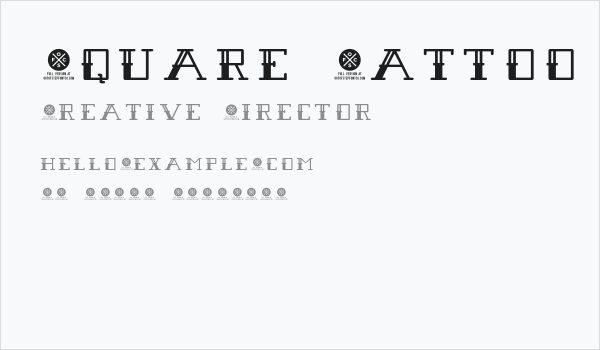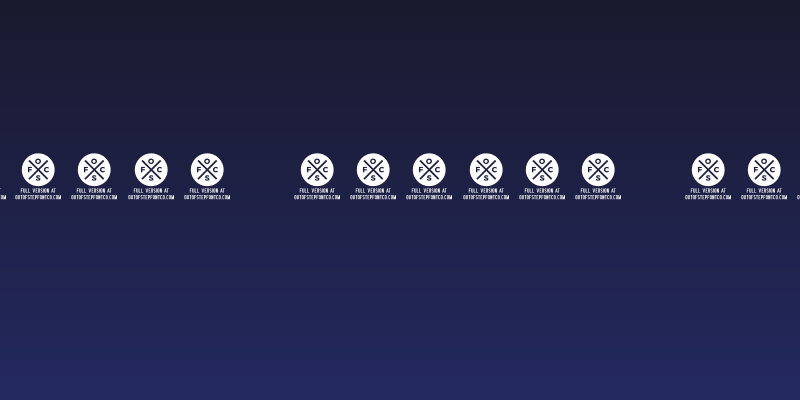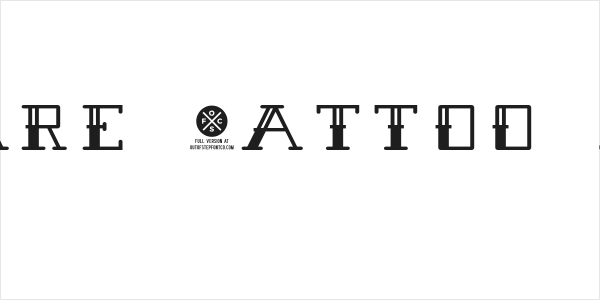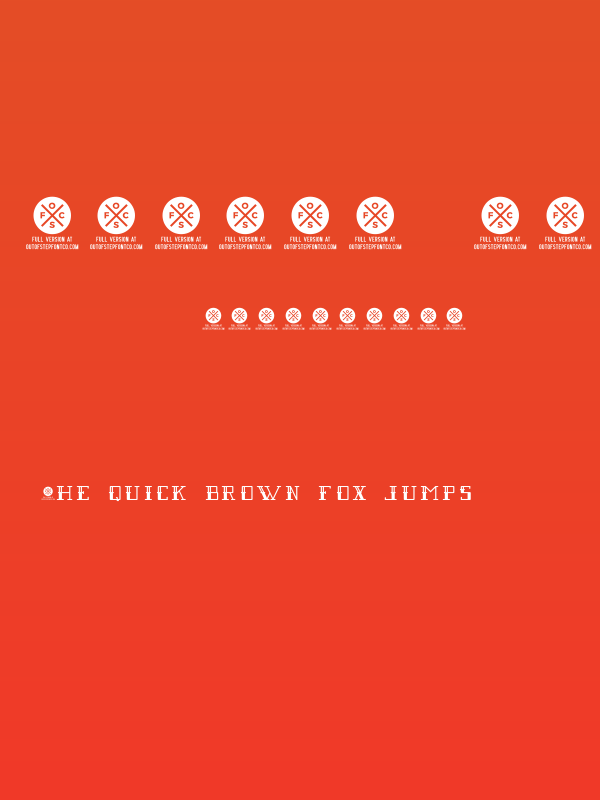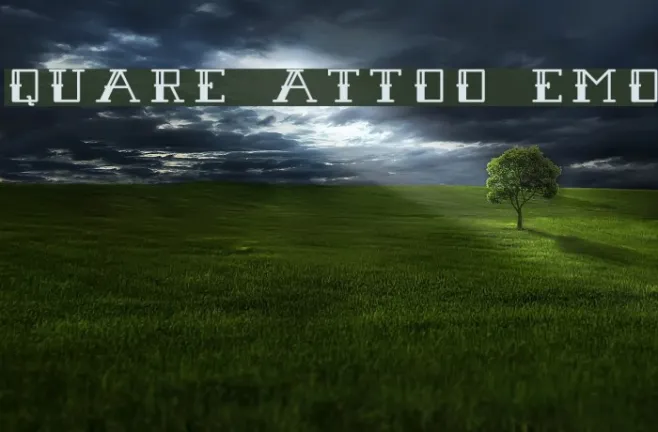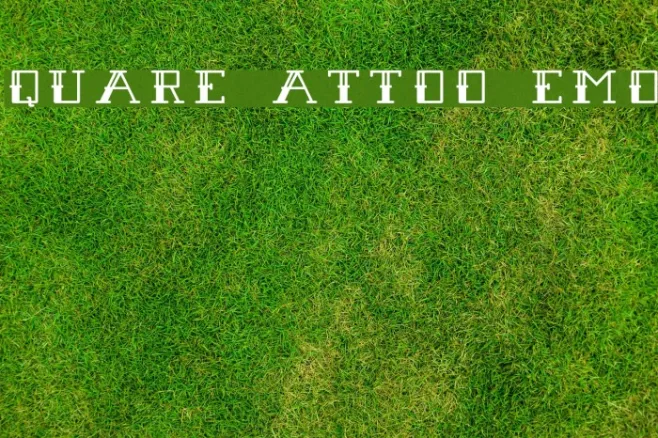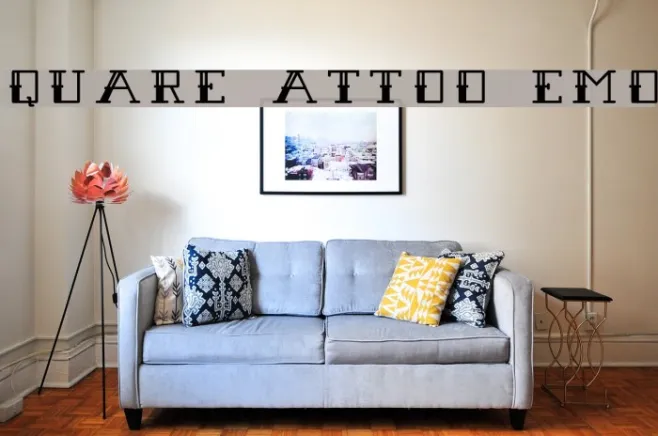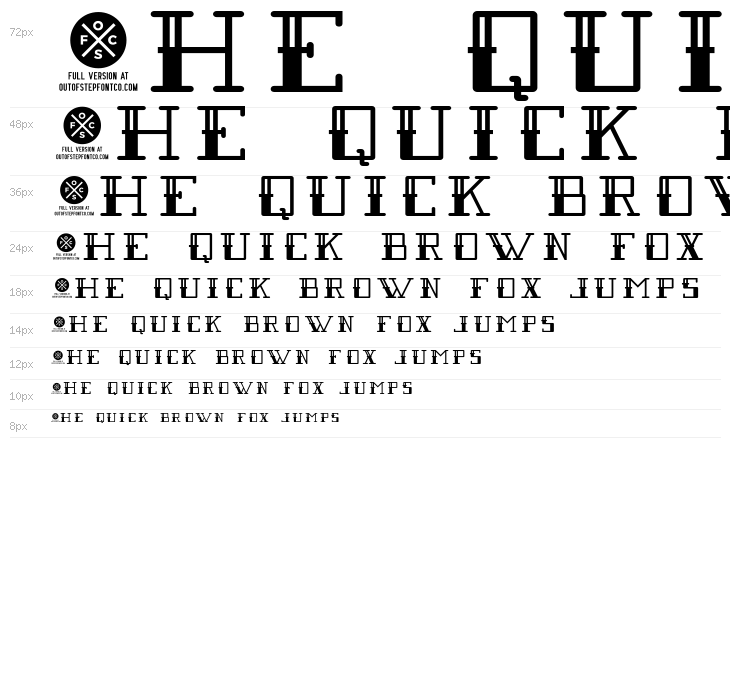
Square Tattoo Demo Font
Square Tattoo Demo Description
This font features a bold, geometric design with a strong presence. Each character is constructed with a square-like structure, giving it a modern and edgy appearance. The uppercase letters are particularly striking, with sharp angles and clean lines that create a sense of precision and strength. The font's unique style is reminiscent of tattoo art, with a decorative flair that makes it stand out. The characters are evenly spaced, providing a balanced and cohesive look. This font is ideal for projects that require a bold statement and a touch of artistic flair.